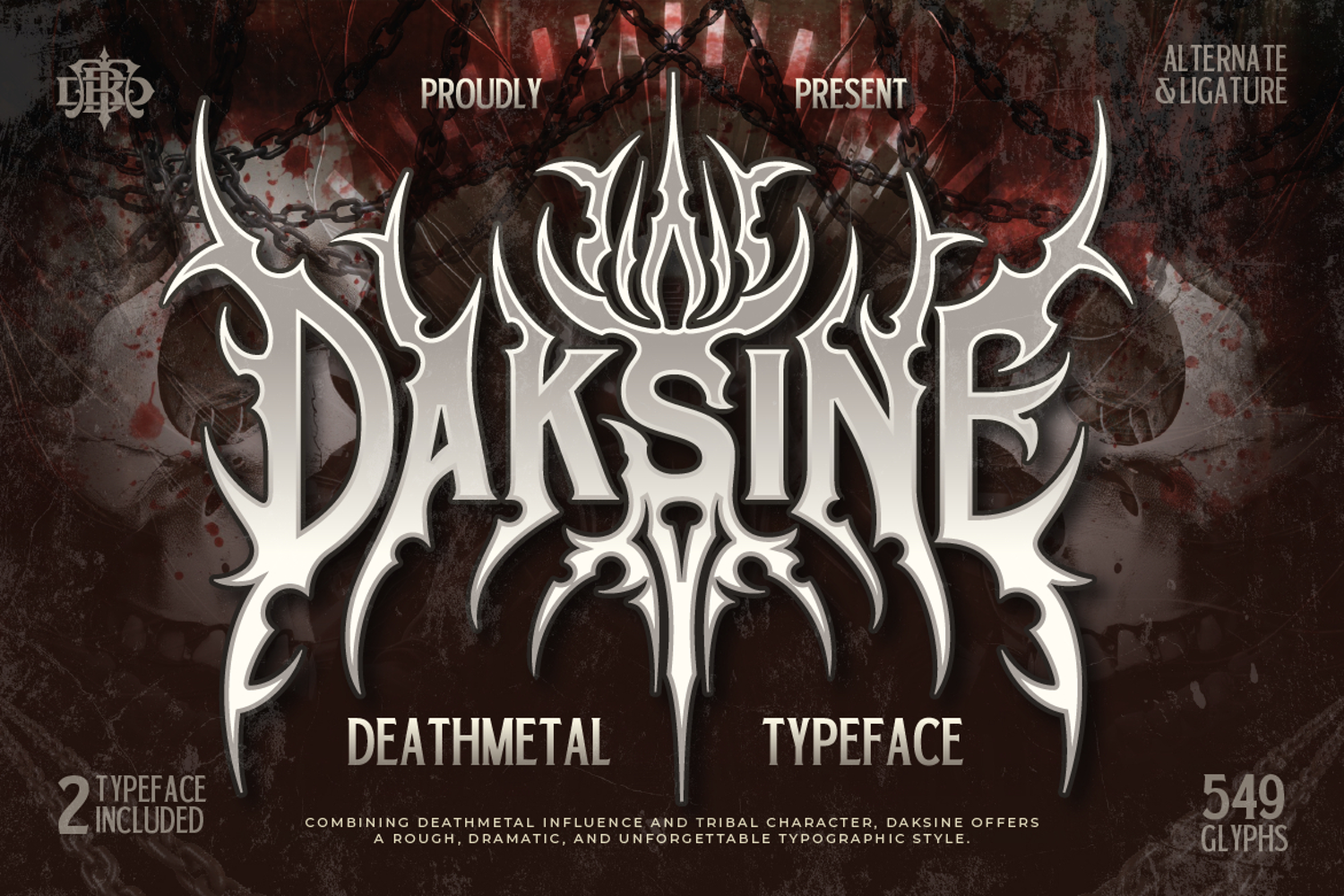
Daksine is a bold and aggressive death metal typeface inspired by extreme music, dark art, and gothic aesthetics. The sharp spikes, dramatic curves, and intense details create a powerful and unforgettable look.
This font is perfect for designs that need a dark, brutal, and high-impact style. Every letter is carefully crafted to give that raw underground metal feeling, but still readable and usable for modern design projects.
Daksine comes with 2 styles: Regular and Outline